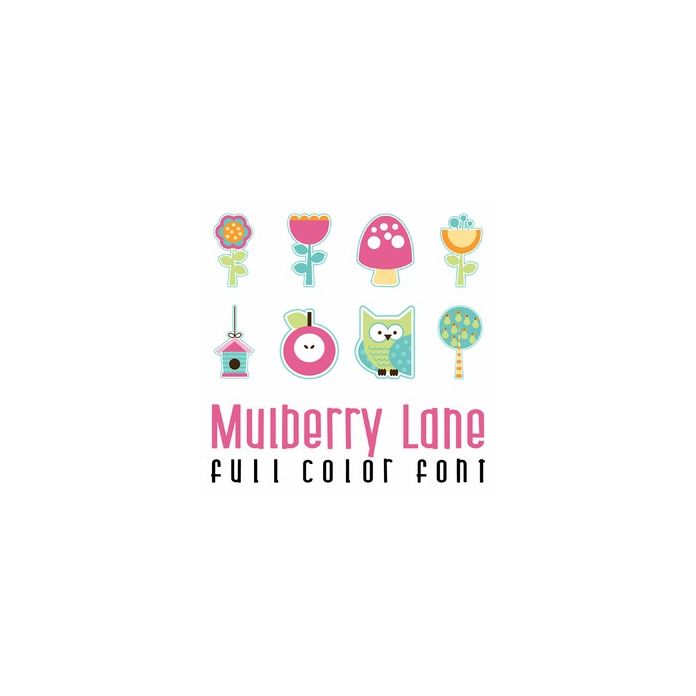
This adorable full color doodlebat font features beautiful flowers, owls, birds, birdhouse and more. Perfect for cards, crafts, gifts, decor, scrap book pages, planner stickers and more!